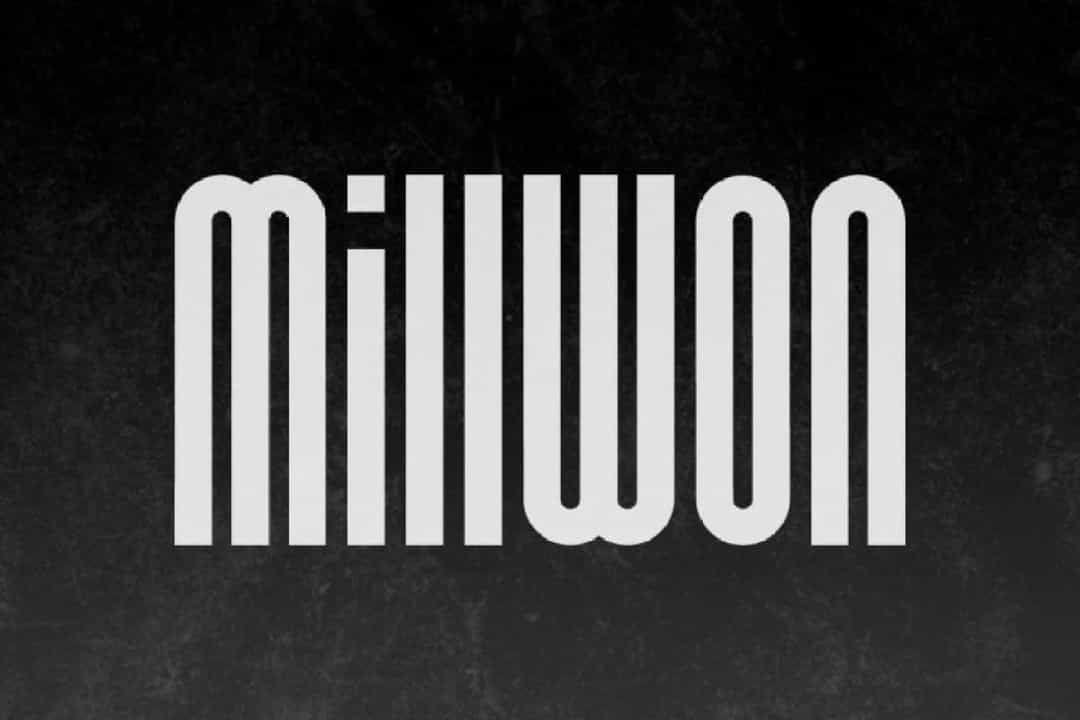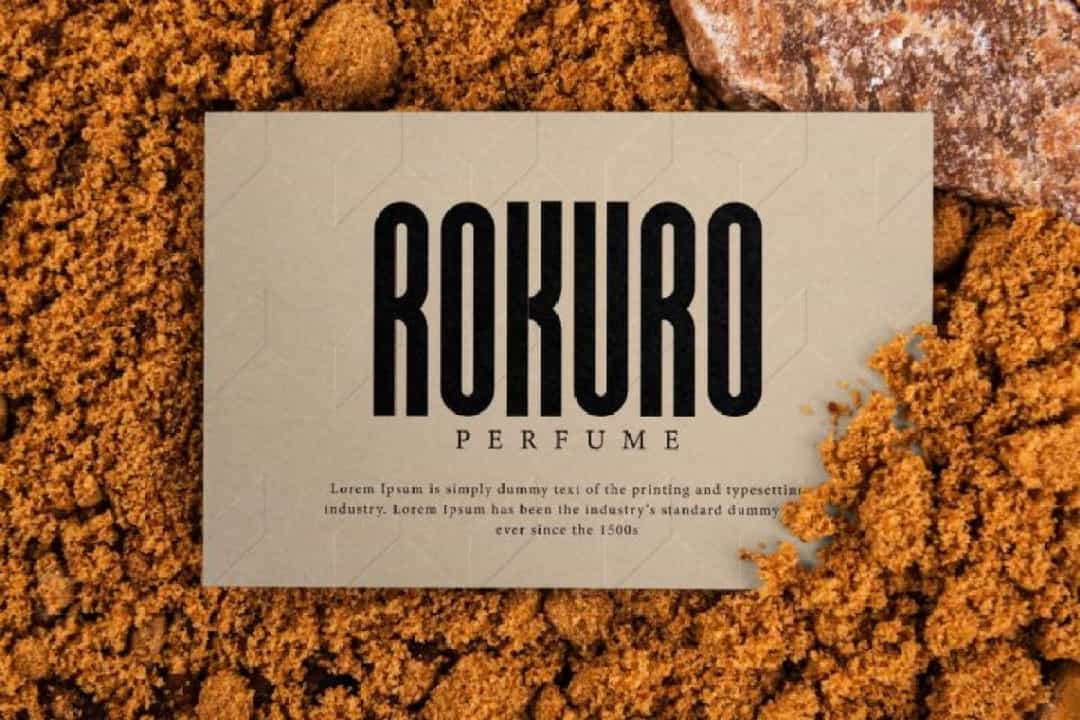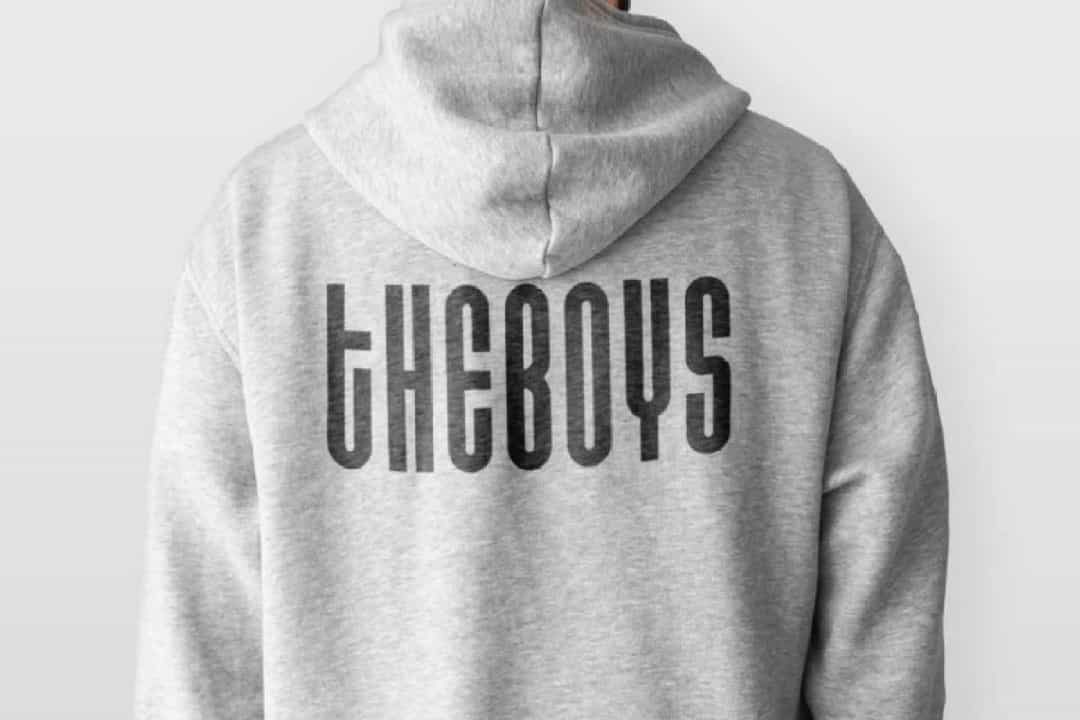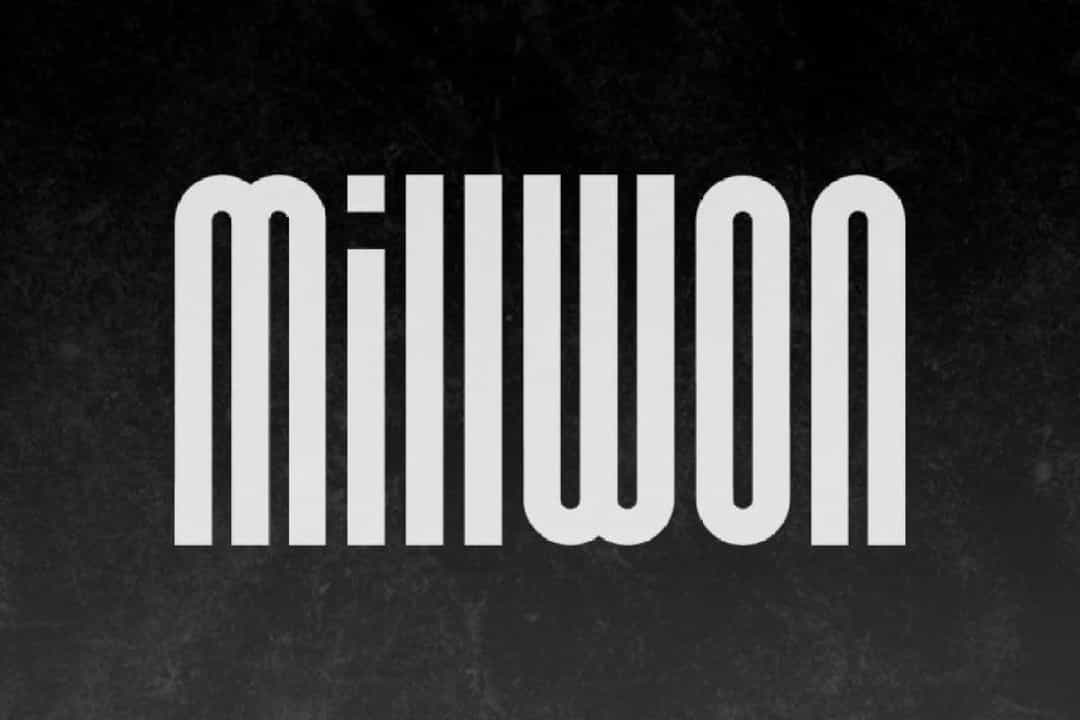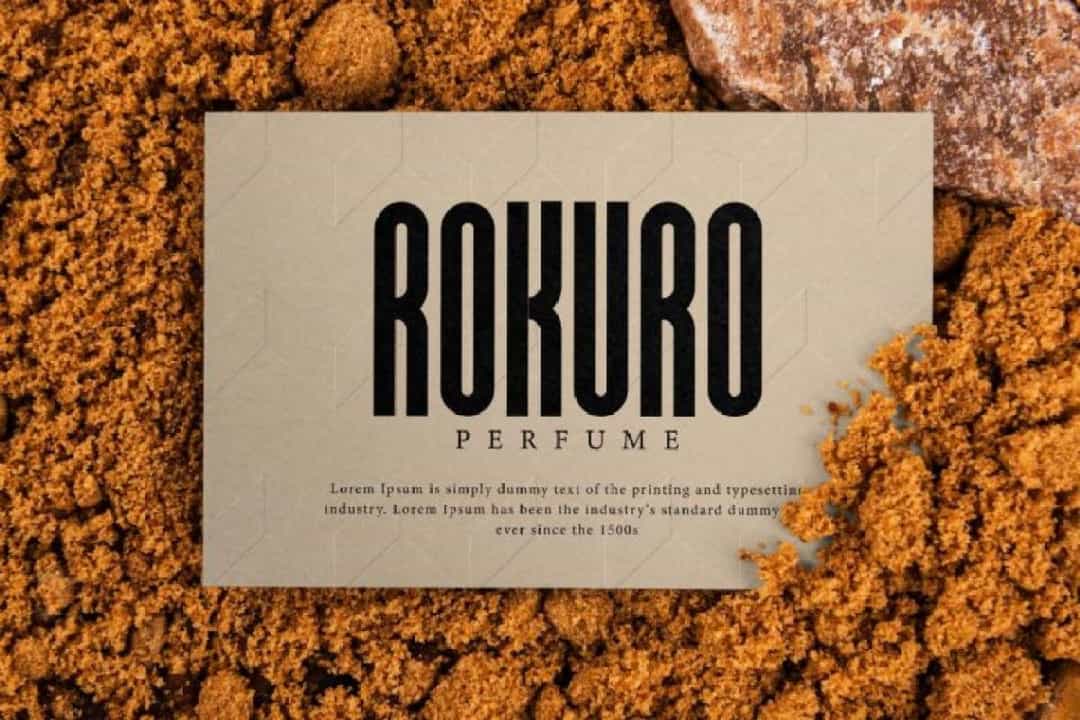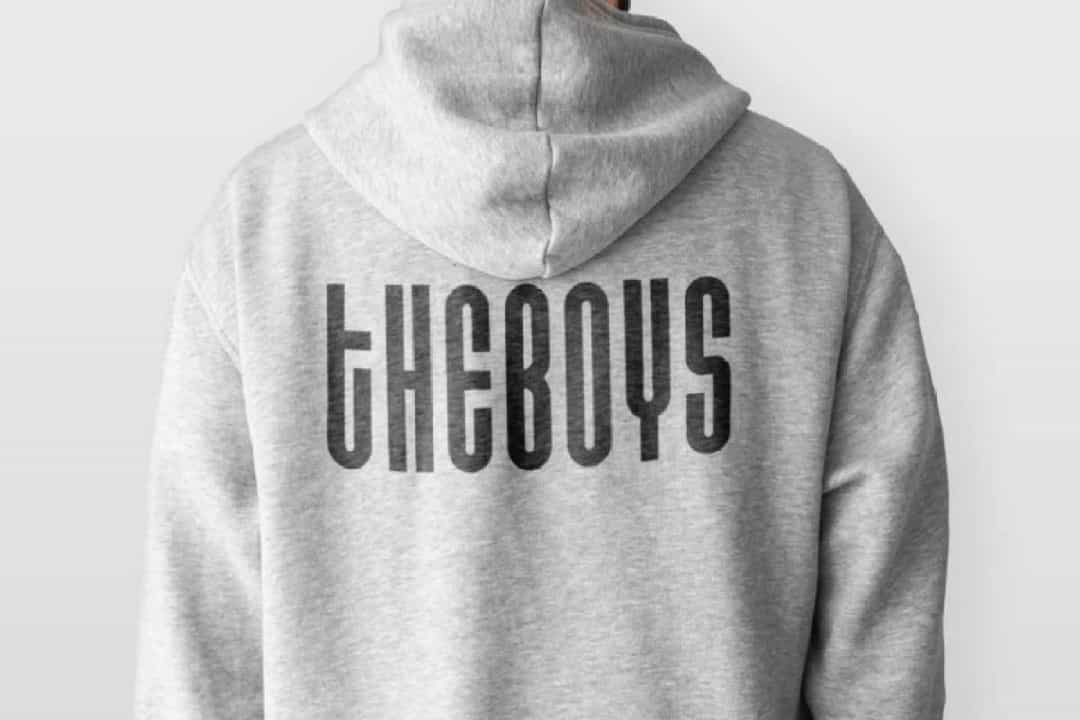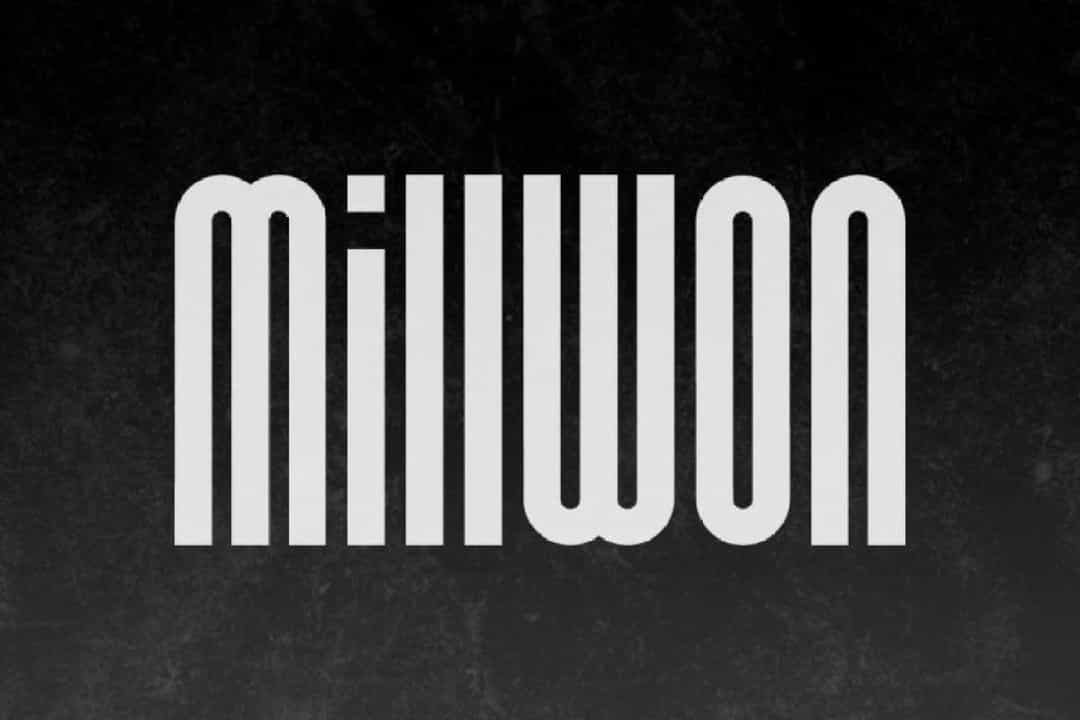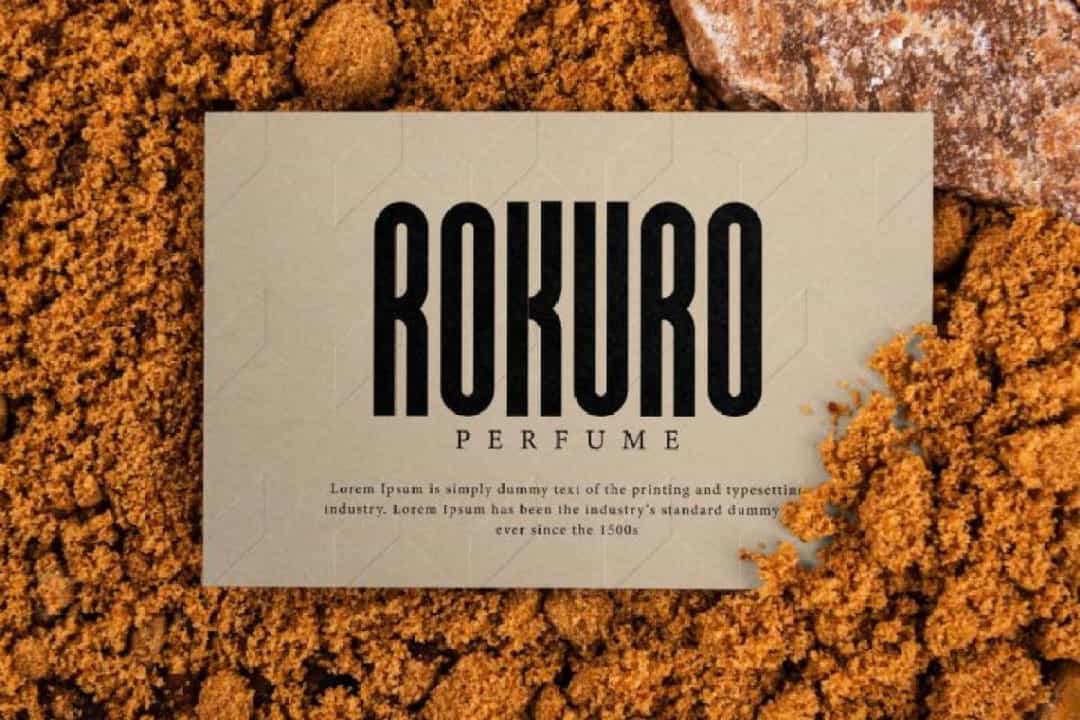
Millwon Font is an exciting, contemporary font with unique curved edges on each character that can elevate your designs to new heights, such as billboards, logos for brands booklet, business cards invitation label catalogue, mockup design posters packaging designs quote screen print signs stationery stickers title web sites etc.